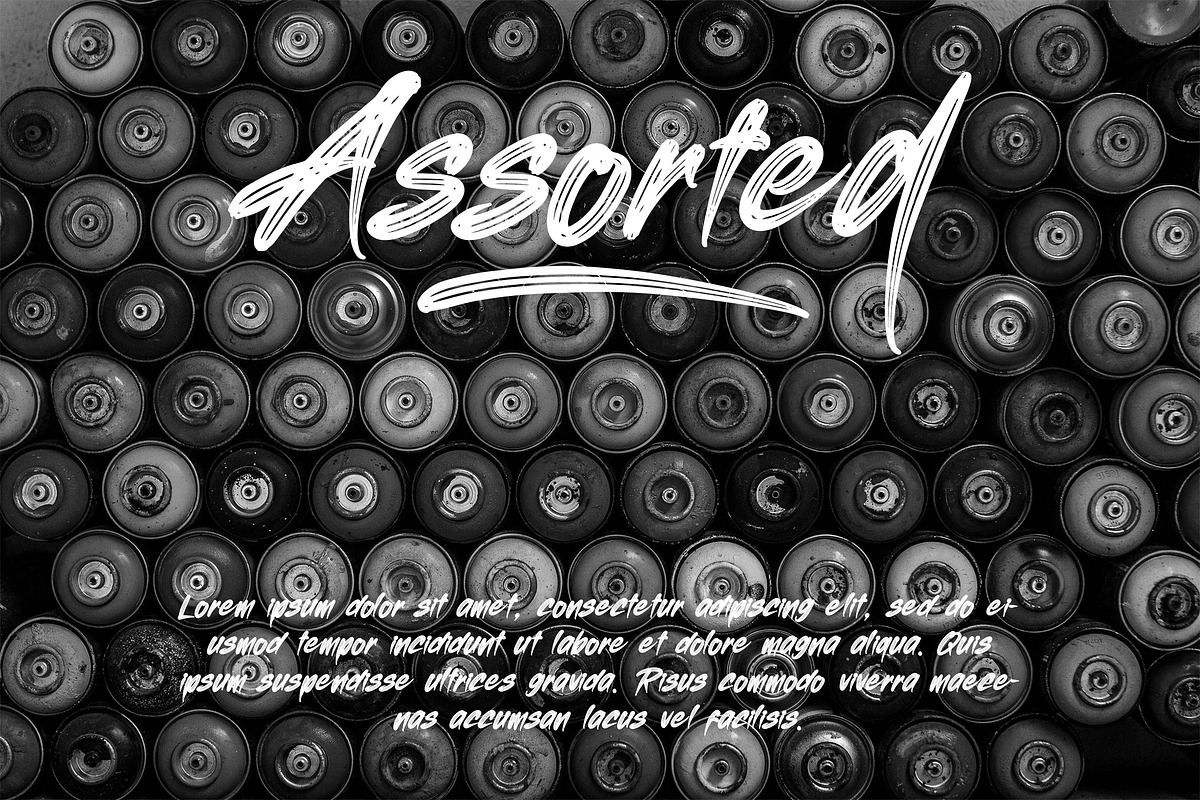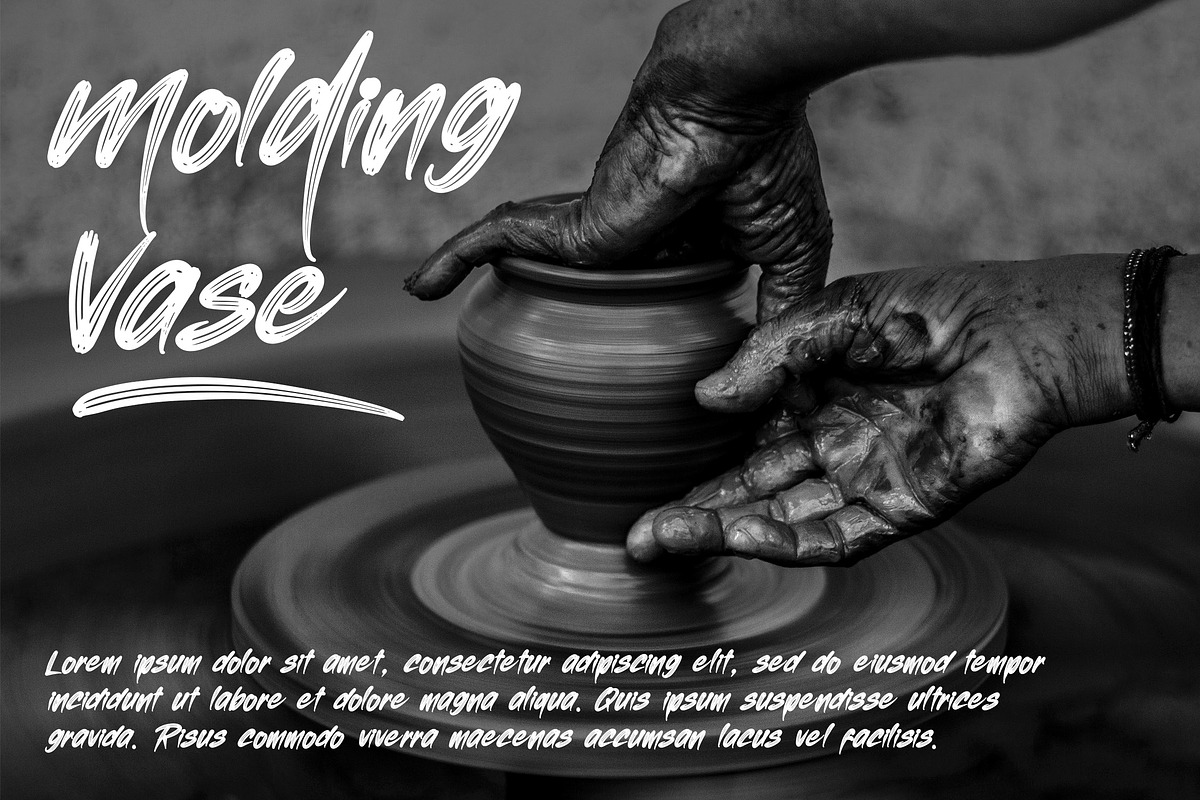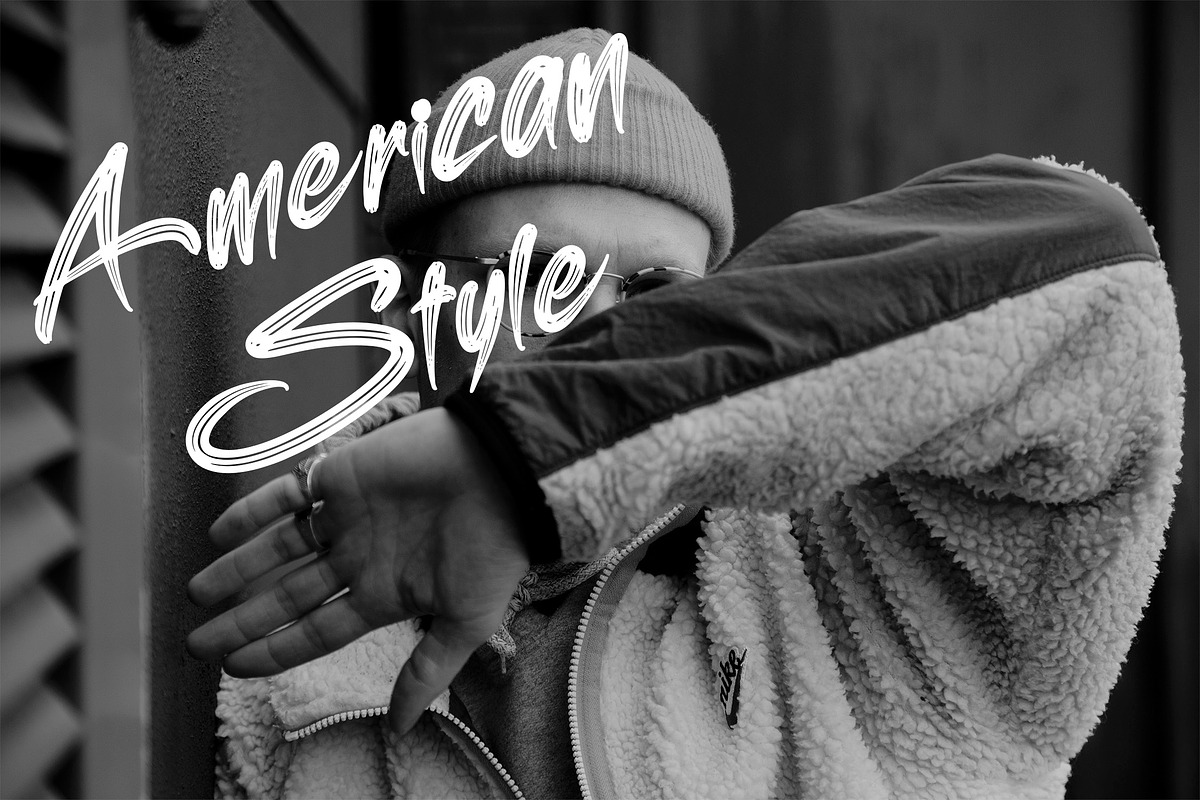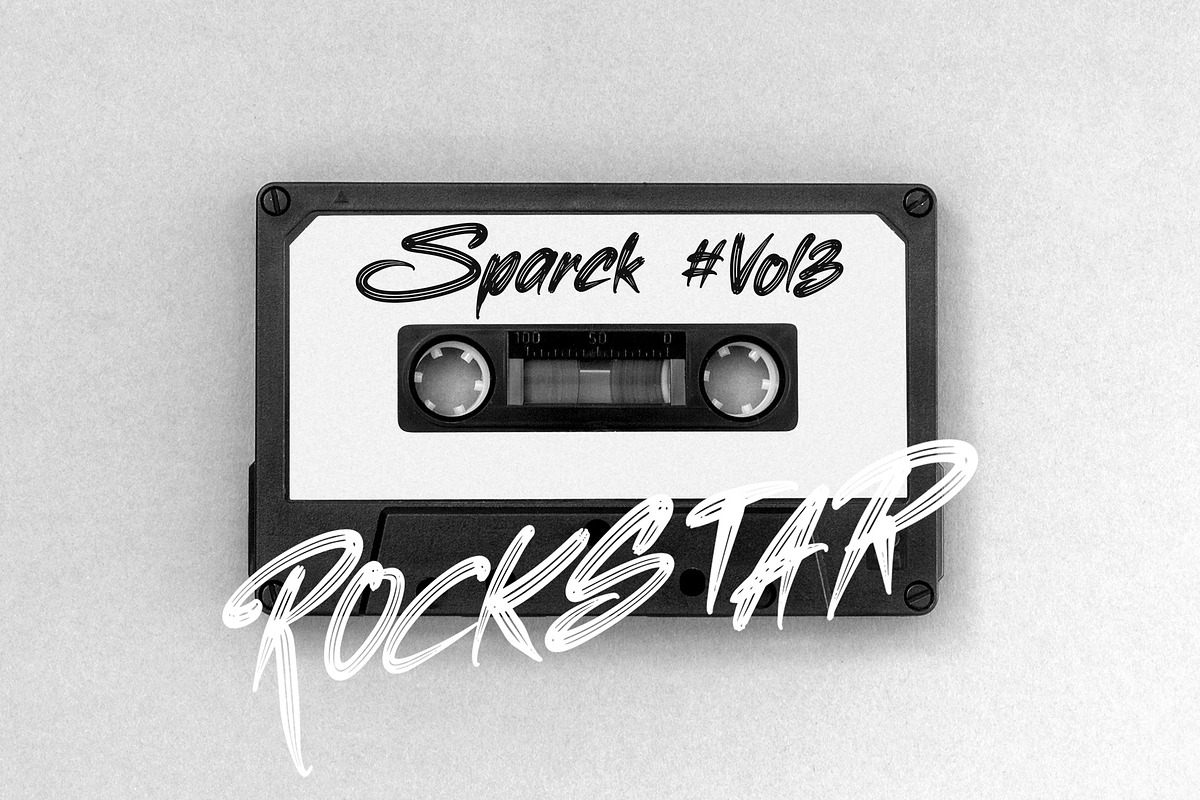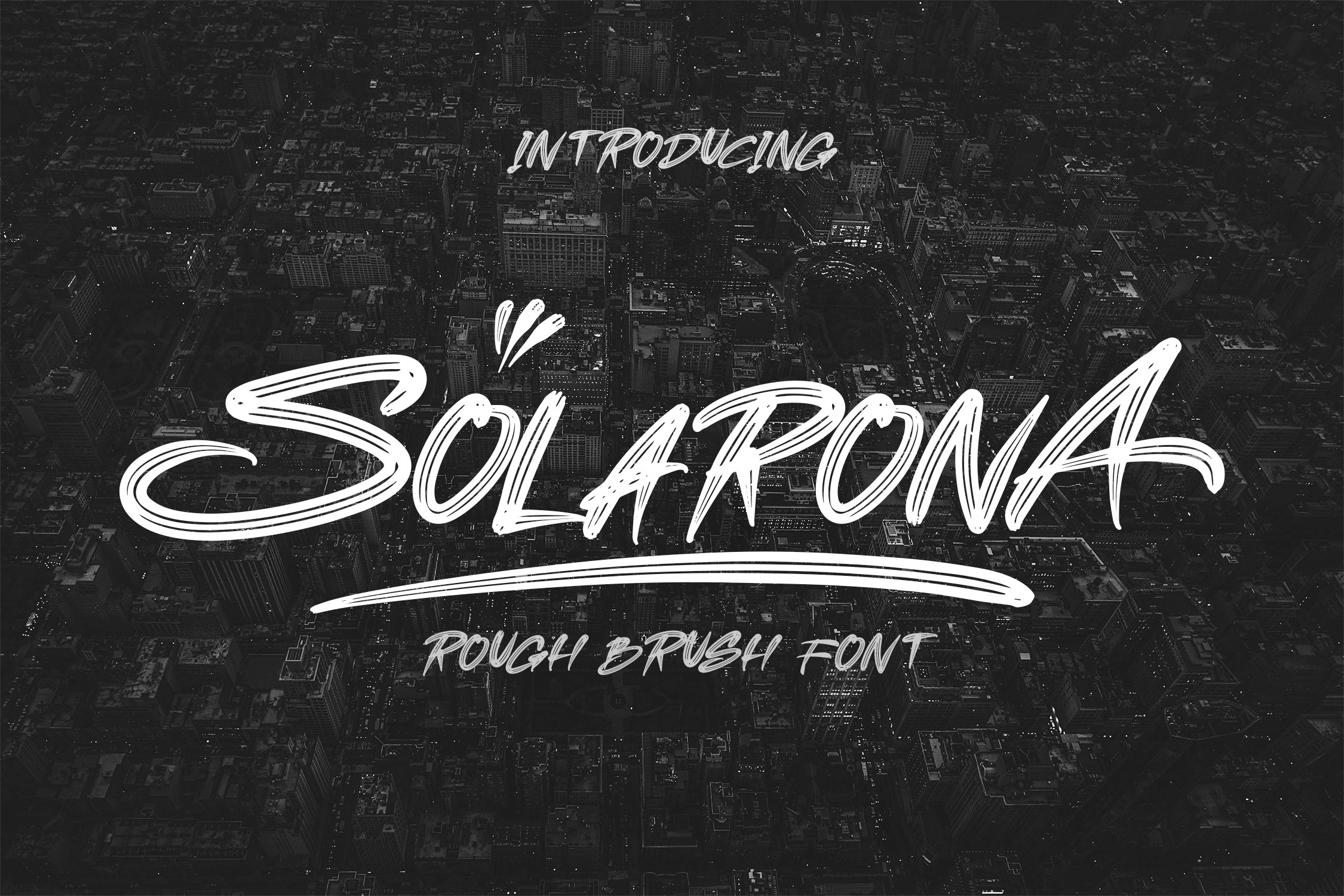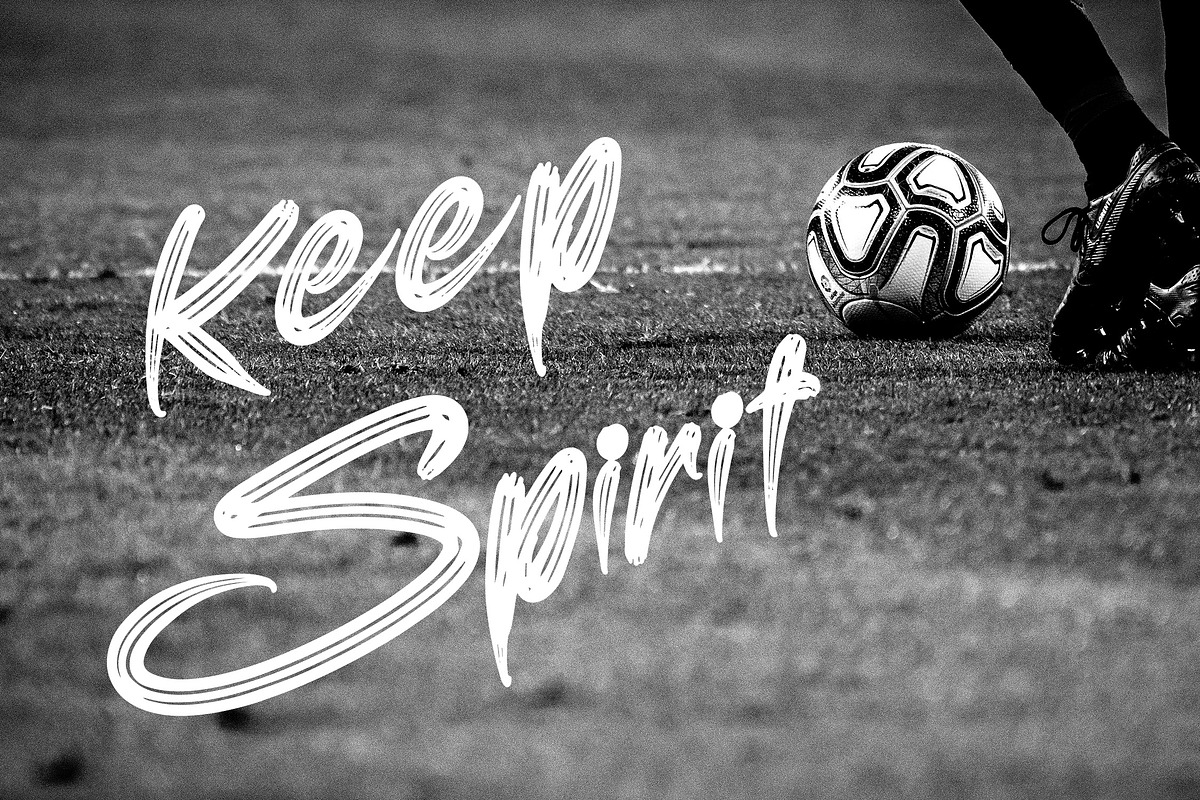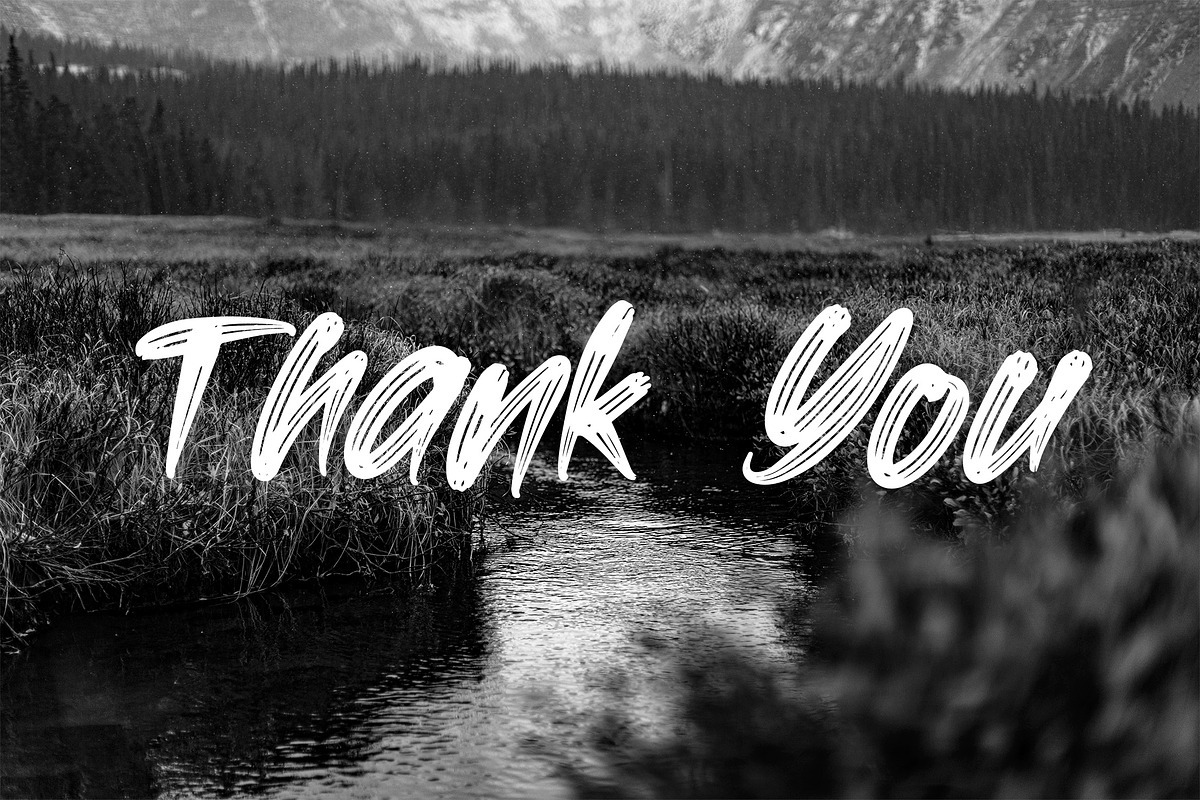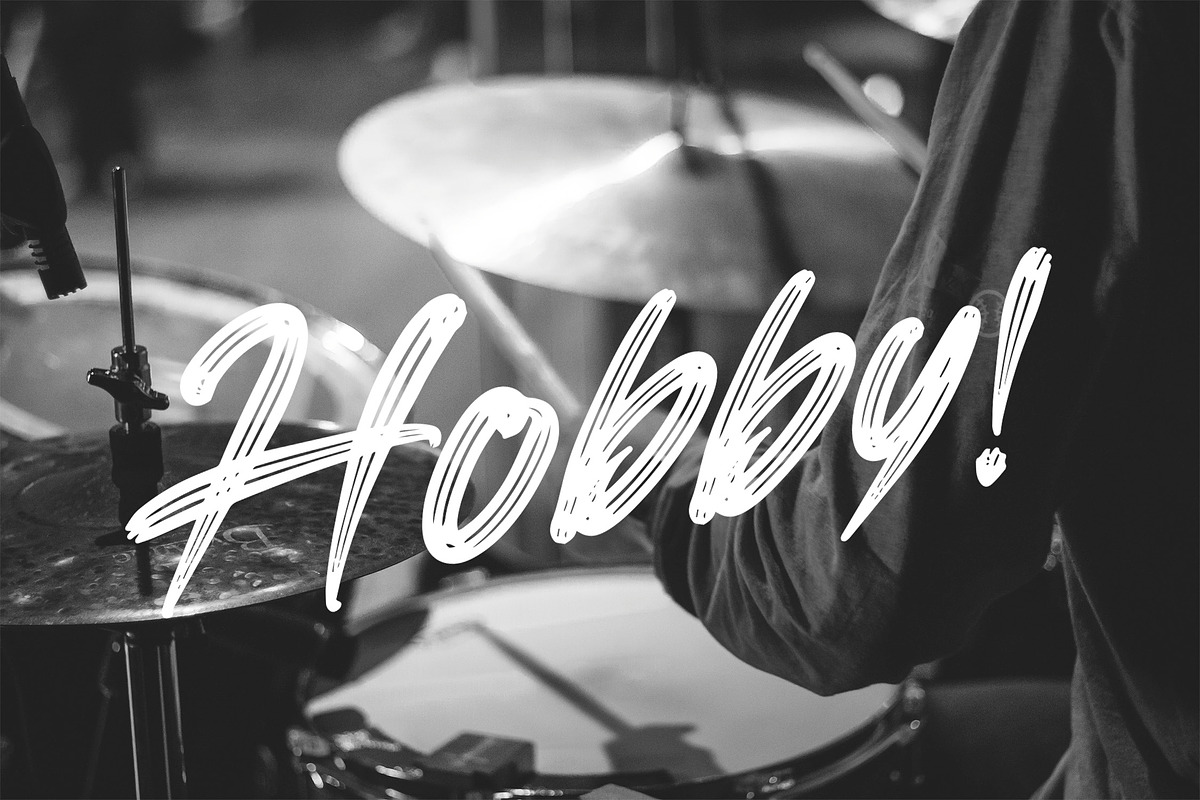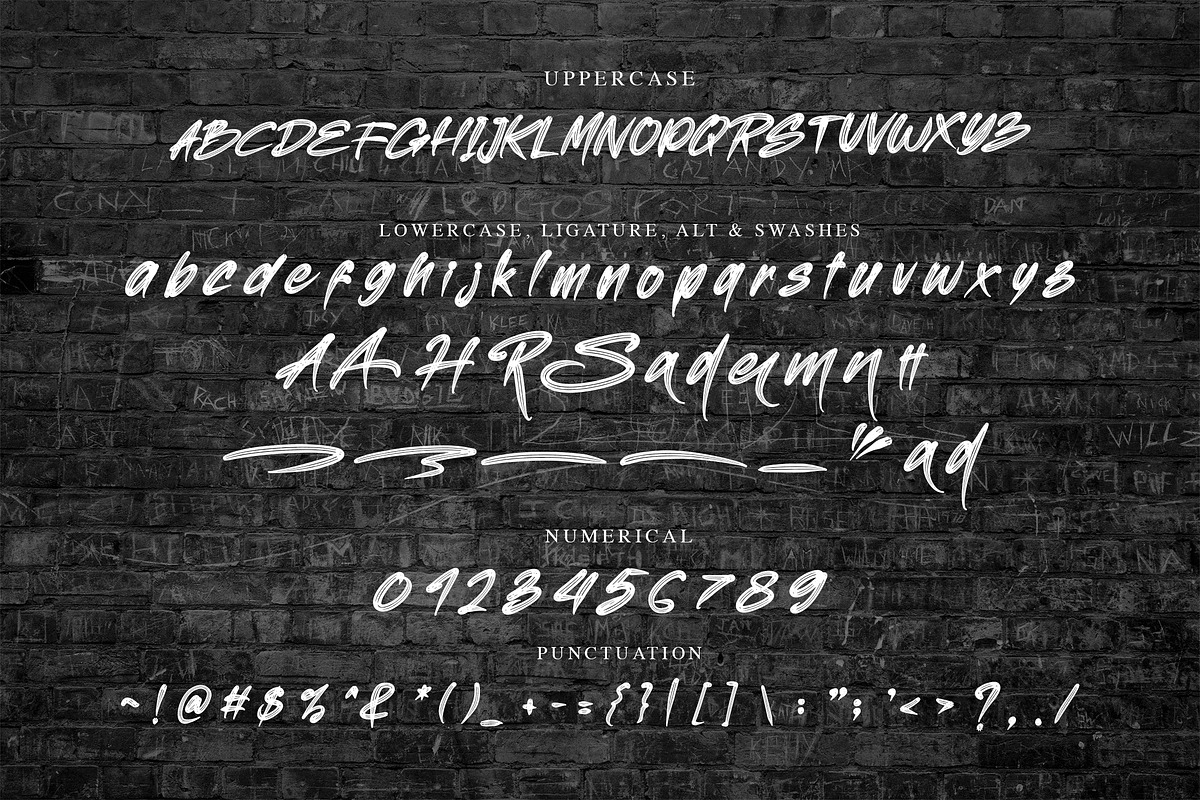
SOLARONA - Brush Font
SOLARONA is a beautiful display font with handbrush style. This brush font is made with brush strokes that look natural and beautiful. Can be applied to support the graphic appearance of the product to be more attractive and unique. This font is suitable for making previews and covers, shirt designs and other graphic needs.
SOLARONA font with uppercase characters A-Z, lowercase characters a-z, punctuation, swashes, stylistic alternate and ligature characters that enhance this font shape.
-Ligature
-Stylistic Alternate
-Swashes